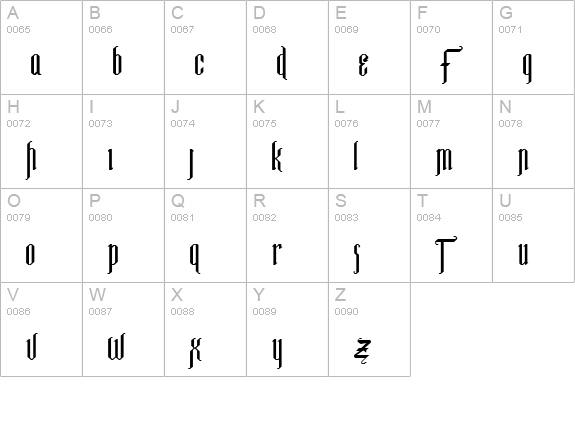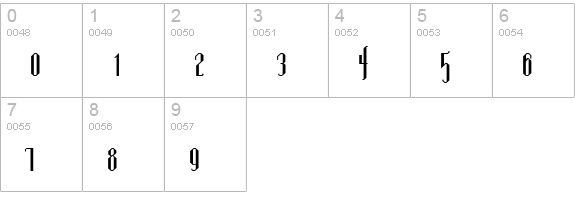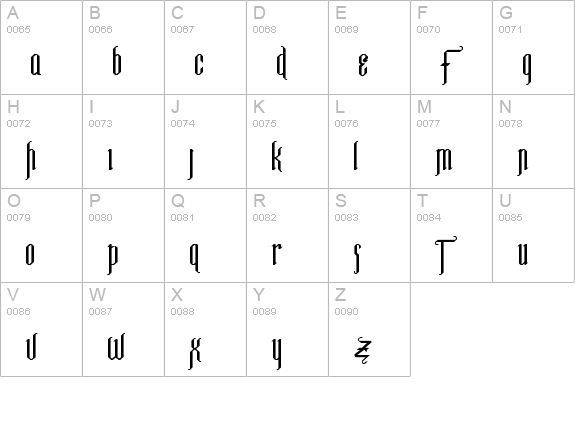
IpswichExtended Bold Font Details
IpswichExtended Bold is a strong, high-contrast variant in the IpswichExtended typeface family \xE2\x80\x94 well suited to headlines, attention-grabbing titles, and strong calls-to-action.
Introducing IpswichExtended Bold, a captivating and versatile font that effortlessly commands attention with its bold and powerful presence. This meticulously crafted typeface combines elegance with a touch of modernity, making it the perfect choice for those seeking to make a bold statement. With its striking and distinct letterforms, IpswichExtended Bold exudes confidence and sophistication, making it ideal for a wide range of creative projects. Whether you're designing eye-catching logos, impactful headlines, or captivating posters, this font will effortlessly elevate your designs to new heights. But what sets IpswichExtended Bold apart is its unique ability to strike a balance between being bold and approachable. It exudes a sense of strength and authority, while still maintaining a friendly and welcoming aura. This makes it a versatile choice, suitable for a variety of industries and design purposes. And the best part? IpswichExtended Bold is available for free! You can easily download this remarkable font at FontsMarket.com, where it is freely accessible to anyone looking to add a touch of boldness to their designs. Don't miss out on this incredible opportunity to enhance your creative endeavors with a font that is both visually stunning and freely available. Embrace the power of IpswichExtended Bold and make your designs truly unforgettable.